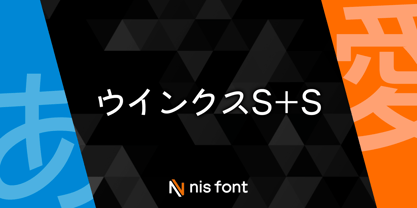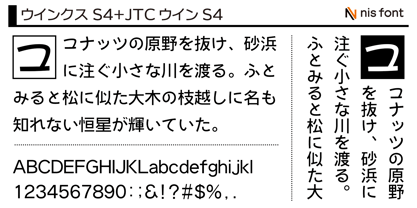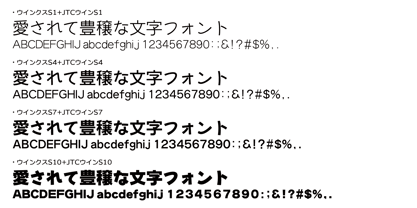
OT-NIS_WKS
by NIS Fonts
The OT-NIS_WKS Font Family was designed by and published by NIS Fonts. OT-NIS_WKS contains 4 styles and family package options. More about this family
"OT-NIS_WKS series“ is a rounded kana developed to soften the ‘hardness’ of ”OT-NIS_S series" Kaku Gothic. Just by changing the kana, the Kanji characters of “JTC Wynn S Series” look like a different typeface. JIS2004 compatible typefaces